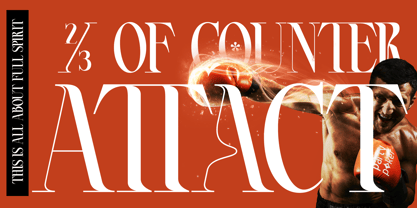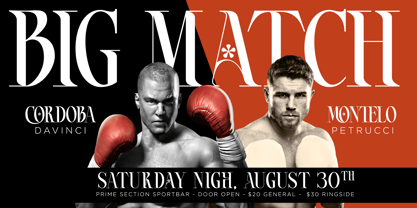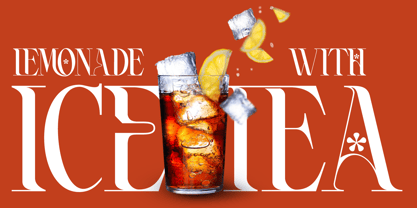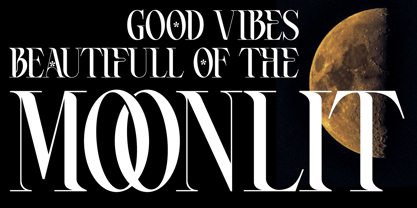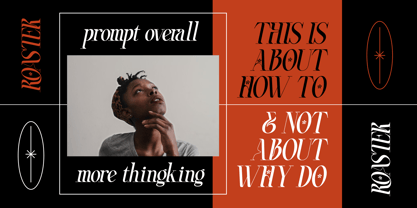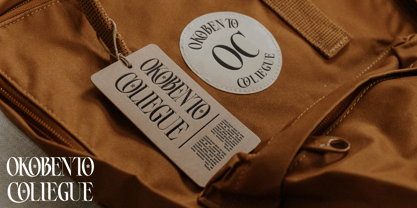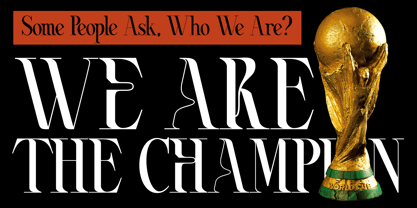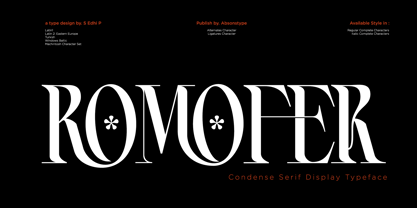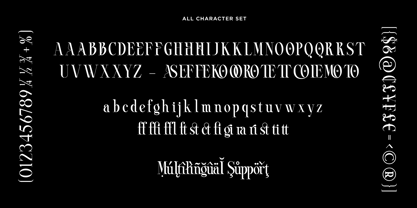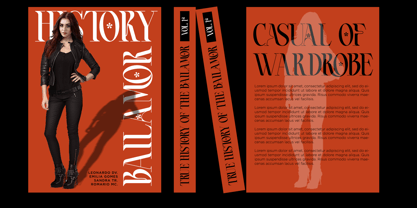
Romofer
The Romofer Font Family was designed by Sarwo Edhi Prayitno, Edhi Prayitno and published by Absonstype. Romofer contains 2 styles and family package options. More about this family
ROASTER is the Serif display typeface with combine uppercase and lowercase looks and feel nice balanced. Provide with alternates and ligatures font in variant style make the design letter looks nice. Honestly it works perfectly for headlines, logos, posters, packaging, T-shirts and much more.
Font Features :
• Regular and Italic version
• Character set A-Z in Uppercase and Lowercase
• Alternates
• Ligatures
• Numerals & Punctuation
• Accented Characters
• Multiple Languages Supported